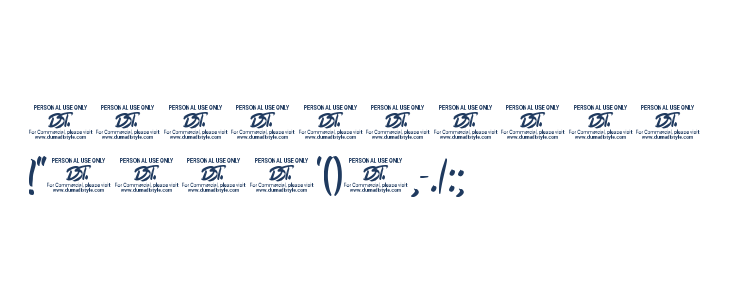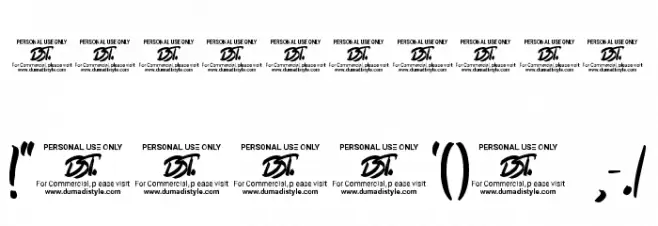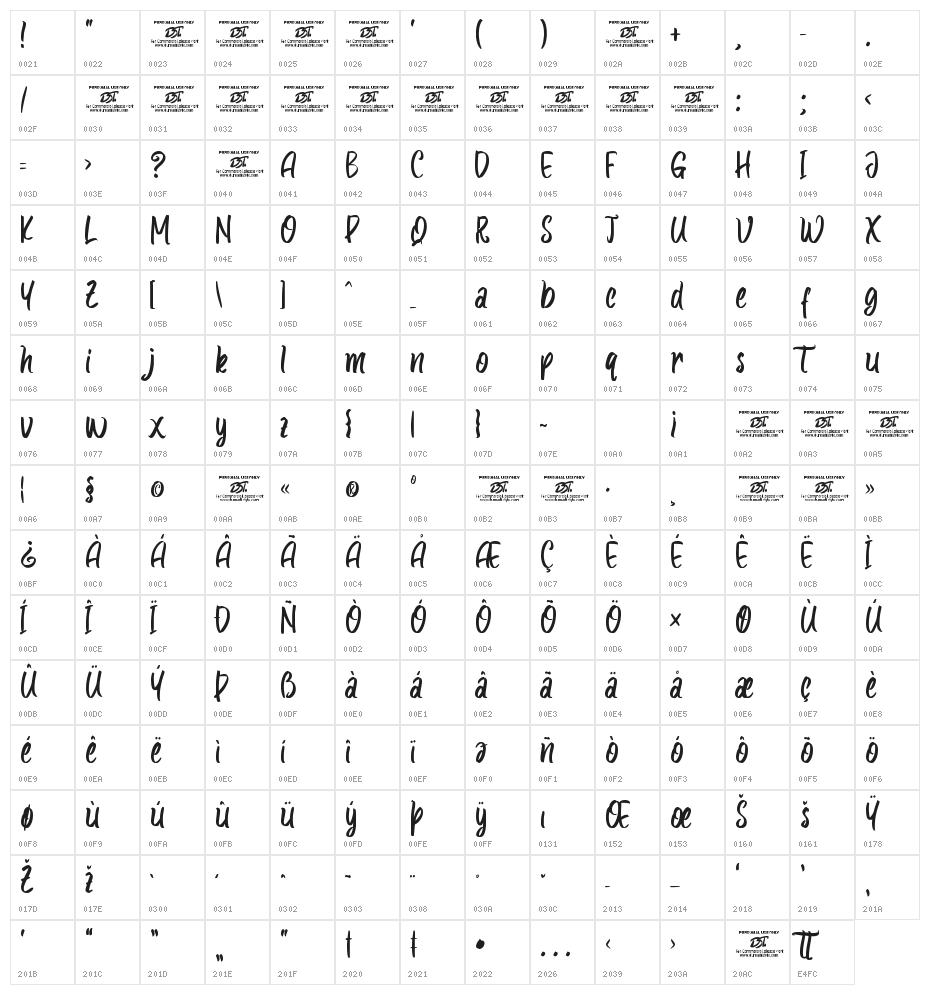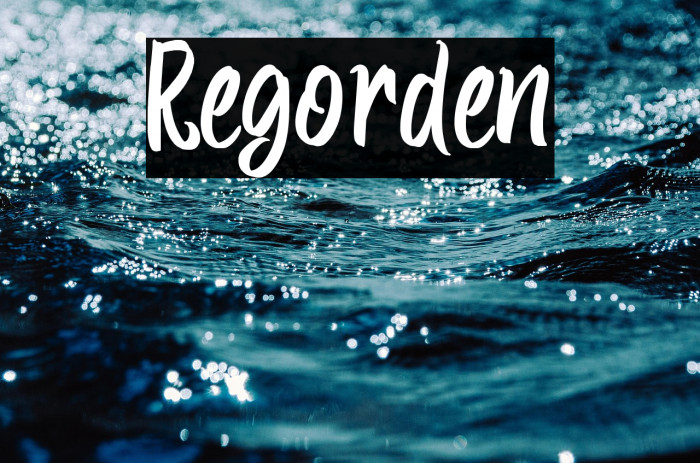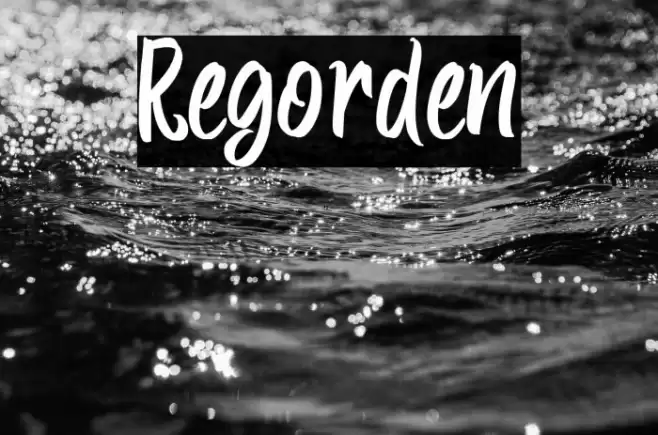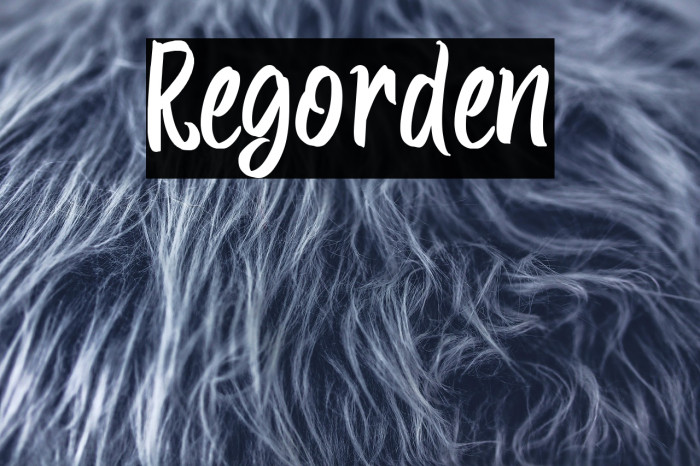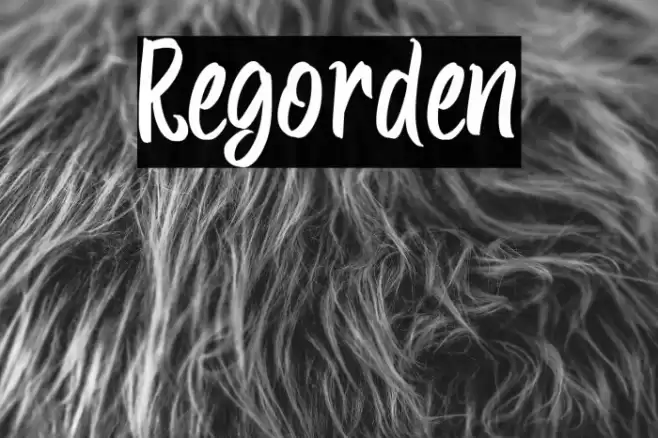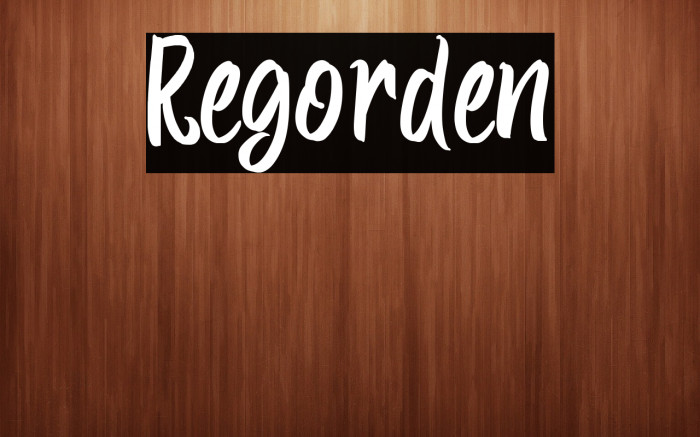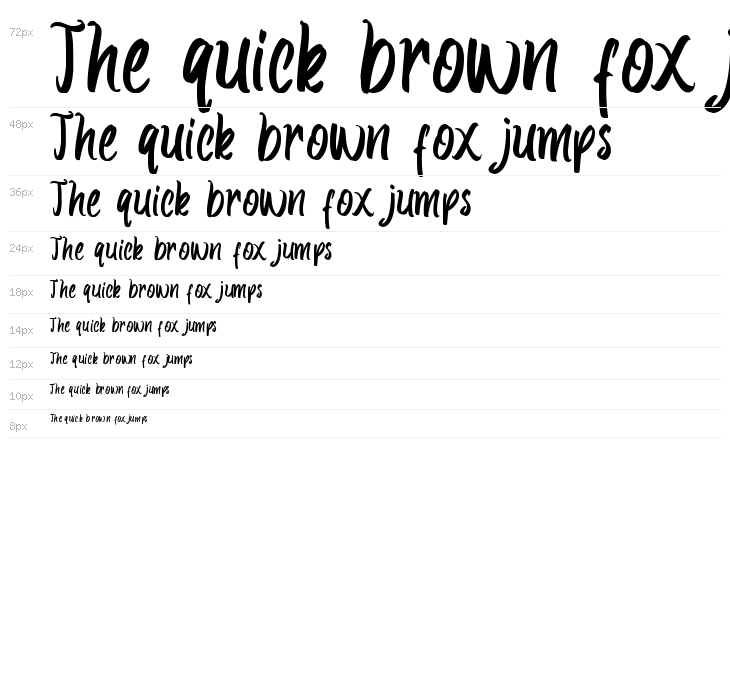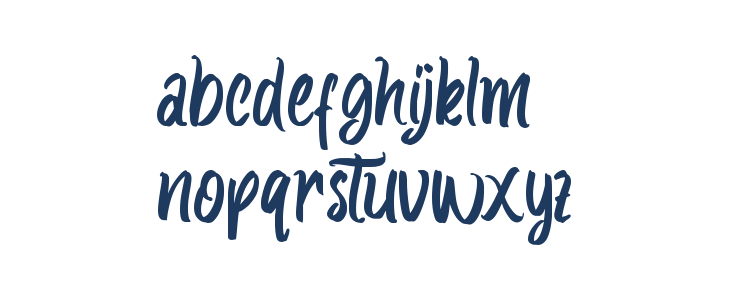
Regorden Font
Regorden Description
This font features a bold and expressive handwritten style, characterized by its fluid and dynamic strokes. The letters exhibit a playful yet elegant appearance, with a slight slant that adds to its casual charm. The uppercase letters are slightly taller and more prominent, while the lowercase letters maintain a consistent flow, enhancing readability. The font's unique personality is further emphasized by its varied line thickness, which adds depth and interest to each character. This font is perfect for projects that require a personal touch or a creative flair.
| Proposed Projects | Ideal for greeting cards, invitations, branding, and social media graphics. |